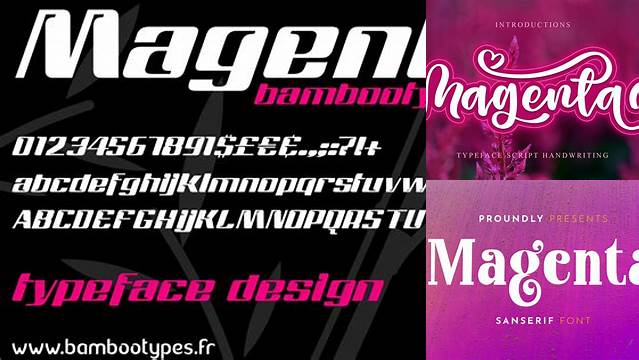
Magenta Font Guide: Free Fonts And How To Use Them
Finding the perfect font can be a daunting task, especially when you're looking for something specific like a magenta font. Whether you're designing a website, creating marketing materials, or working on a personal project, the right font can make all the difference. This comprehensive guide will walk you through everything you need to know about using and finding magenta fonts, ensuring your projects stand out with a touch of vibrancy and elegance.
What is a Magenta Font?
First off, let's clarify what we mean by a magenta font. Magenta, a vibrant purplish-red color, isn't a characteristic of the font's structure itself but rather the color applied to the text. So, when someone searches for a magenta font, they're typically looking for fonts that will look great when rendered in the magenta color. This means you can technically use any font and apply a magenta color to it. However, some fonts naturally pair better with bright and bold colors like magenta, making them ideal choices for your projects.
When selecting a font to use with magenta, consider the overall tone and style you want to convey. For a modern and playful look, sans-serif fonts like Helvetica, Arial, or Futura can be excellent choices. Their clean lines and simple forms allow the vibrant magenta color to take center stage without the font appearing too cluttered or overwhelming. Imagine using a bold sans-serif font in magenta for a tech startup's logo or website header – the combination exudes innovation and energy. On the other hand, if you're aiming for a more elegant and sophisticated feel, serif fonts such as Times New Roman, Garamond, or Didot can be incredibly effective. The serifs add a touch of classic charm, which, when combined with magenta, can create a unique and eye-catching aesthetic. Picture a high-end fashion magazine using a delicate serif font in magenta for its headlines – the result is both luxurious and memorable.
Beyond the basic categories of serif and sans-serif, there are countless other font styles to explore. Script fonts, which mimic the flowing strokes of handwriting, can add a personal and artistic touch when used in magenta. Think of wedding invitations or greeting cards where a beautiful script font in magenta can convey warmth and elegance. Display fonts, designed to grab attention, are another fantastic option. These fonts often feature unique and decorative elements that make them perfect for headlines, posters, and other large-format applications. Imagine a music festival poster with a bold, playful display font in magenta – it's sure to catch the eye and create excitement. Ultimately, the best font to use with magenta will depend on the specific context of your project and the message you want to communicate. Experiment with different styles and combinations to find the perfect fit and make your designs truly shine.
DaFont: For those on a budget, DaFont is an excellent resource for free fonts. While the quality can vary, there are plenty of gems to be found if you're willing to do some digging. DaFont offers a wide range of font styles, from script and display fonts to more traditional serif and sans-serif options. It's a great place to experiment with different typefaces and find inspiration for your projects. However, it's essential to pay close attention to the licensing terms of each font, as they can vary widely. Some fonts are free for personal use only, while others are free for commercial use as well. Always double-check the license before using a font in a professional project to ensure you're complying with the terms.
When exploring these resources, remember to use keywords related to font styles (e.g., sans-serif, script, display) along with your color preference (magenta) to narrow down your search. Don't hesitate to experiment with different font styles and see how they look when rendered in magenta. The key is to find a font that not only complements the color but also aligns with the overall aesthetic and message of your project.
How to Use Magenta Fonts Effectively
Using magenta fonts effectively involves more than just choosing a font and applying the color. It's about understanding how magenta works within your design and how it interacts with other elements. Here are some tips to help you use magenta fonts like a pro:
In conclusion, while there's no single "magenta font" in the literal sense, the key is to choose a font that works well when rendered in the magenta color. Explore the resources mentioned, experiment with different font styles, and consider the tips for effective use. With the right approach, you can leverage magenta fonts to create eye-catching and impactful designs that truly stand out. So go ahead, guys, unleash your creativity and let magenta bring your projects to life!